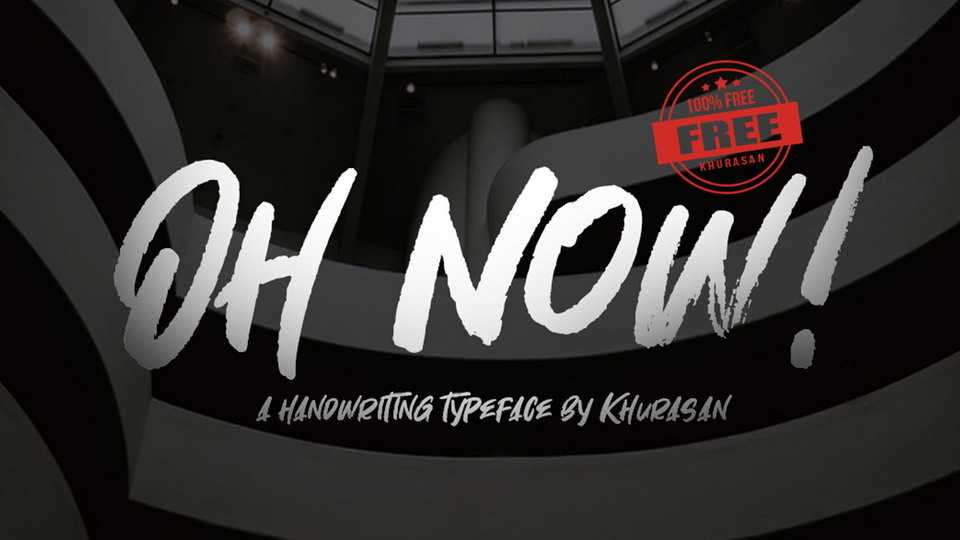
Download Oh Now! font, a cool and eye-catching handwritten brush script. Perfect for posters, headlines, branding, packaging, merchandise and other creative projects.